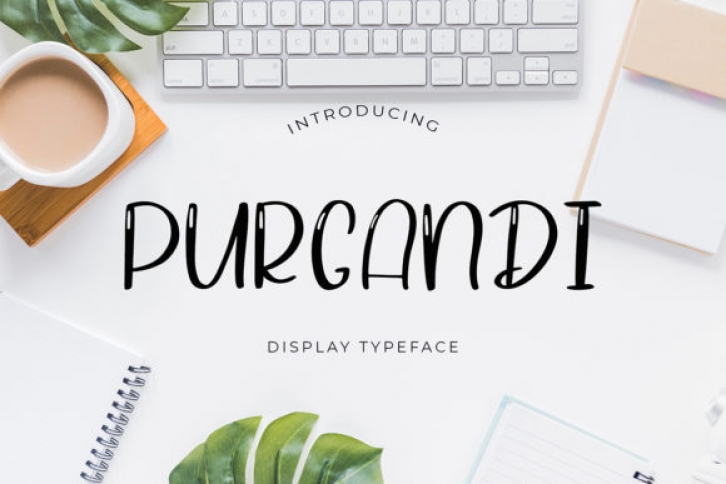
Purgandi embodies fun, playfulness and authenticity. This display font will appeal to a wide range of crafty ideas, from letterheads and titles, to stationery and more!